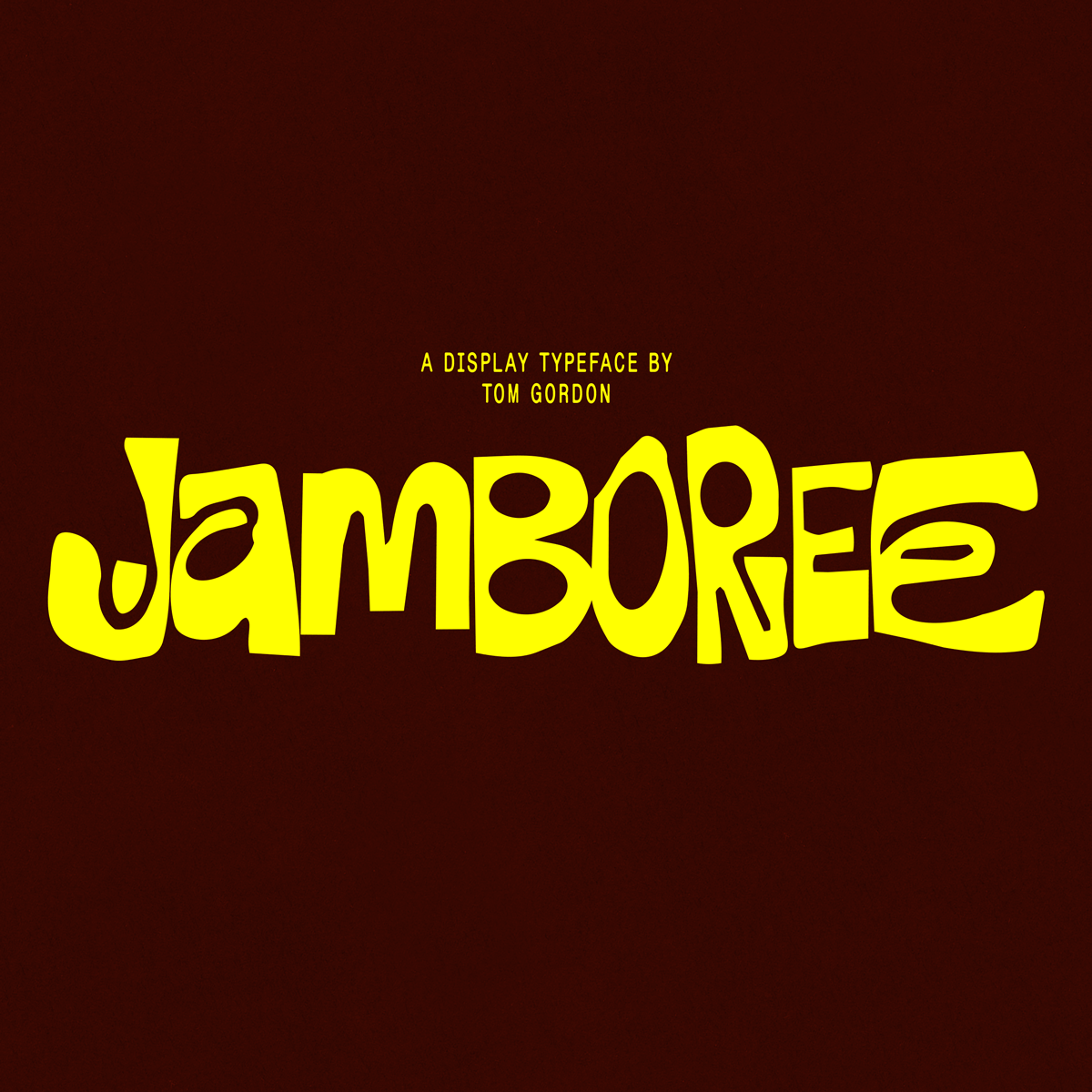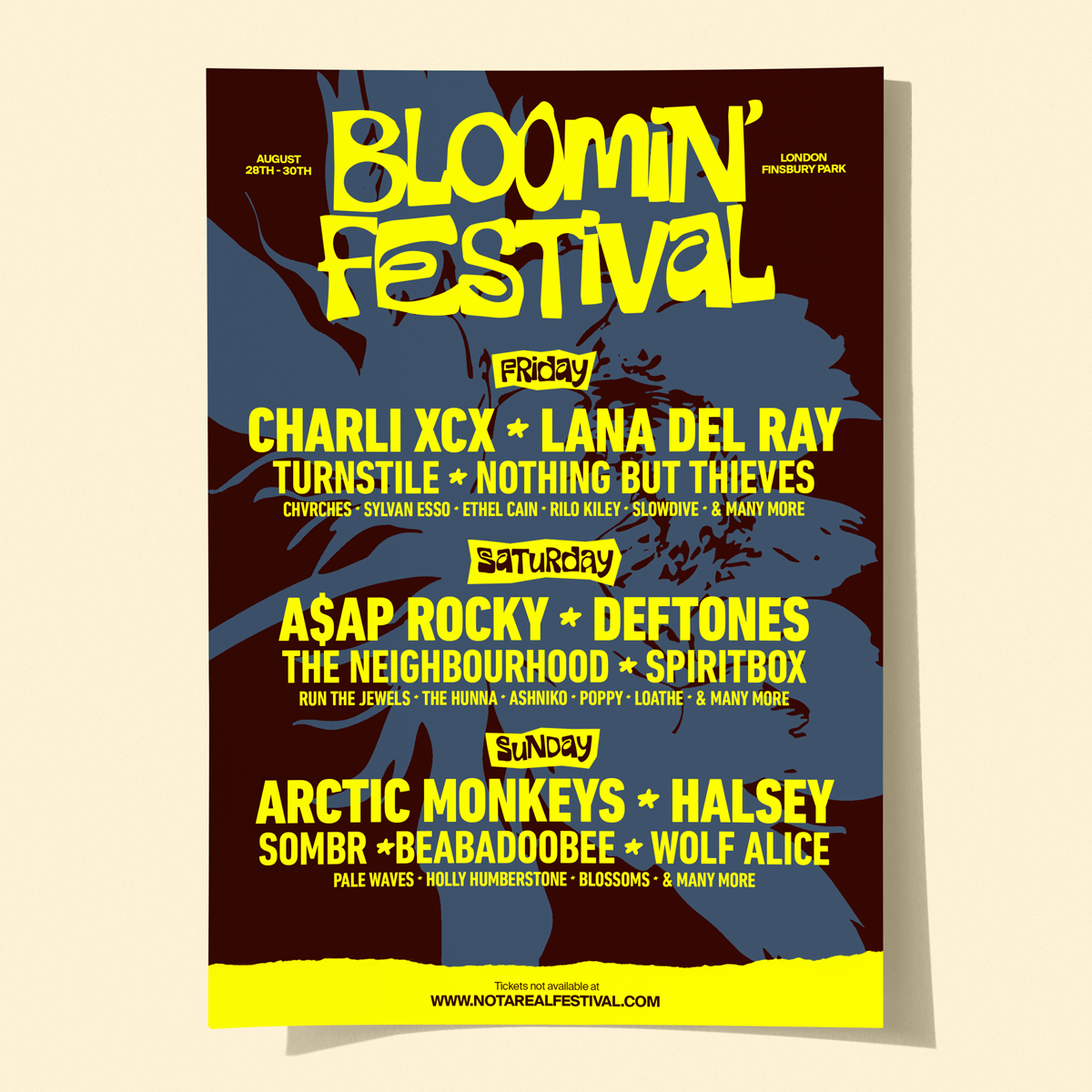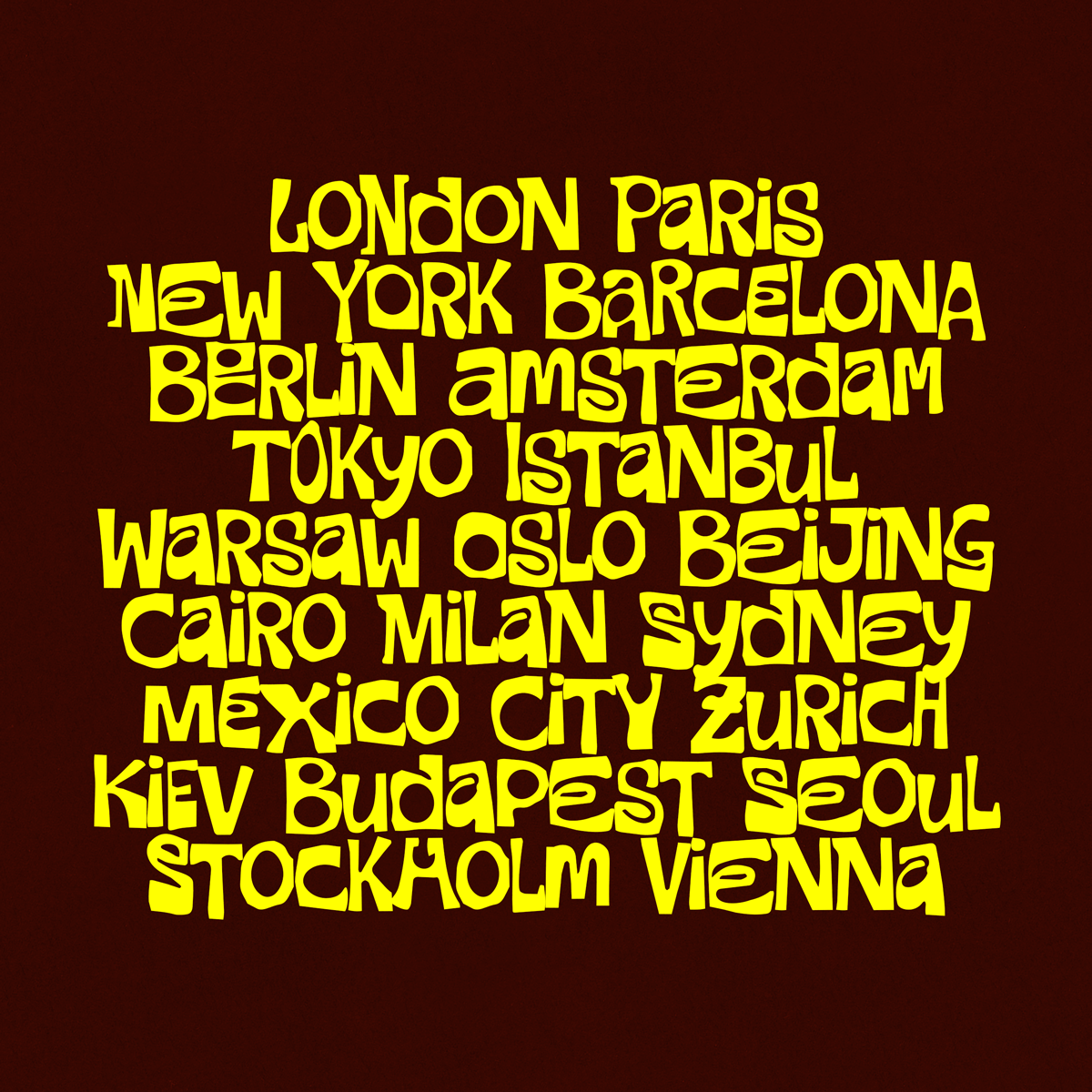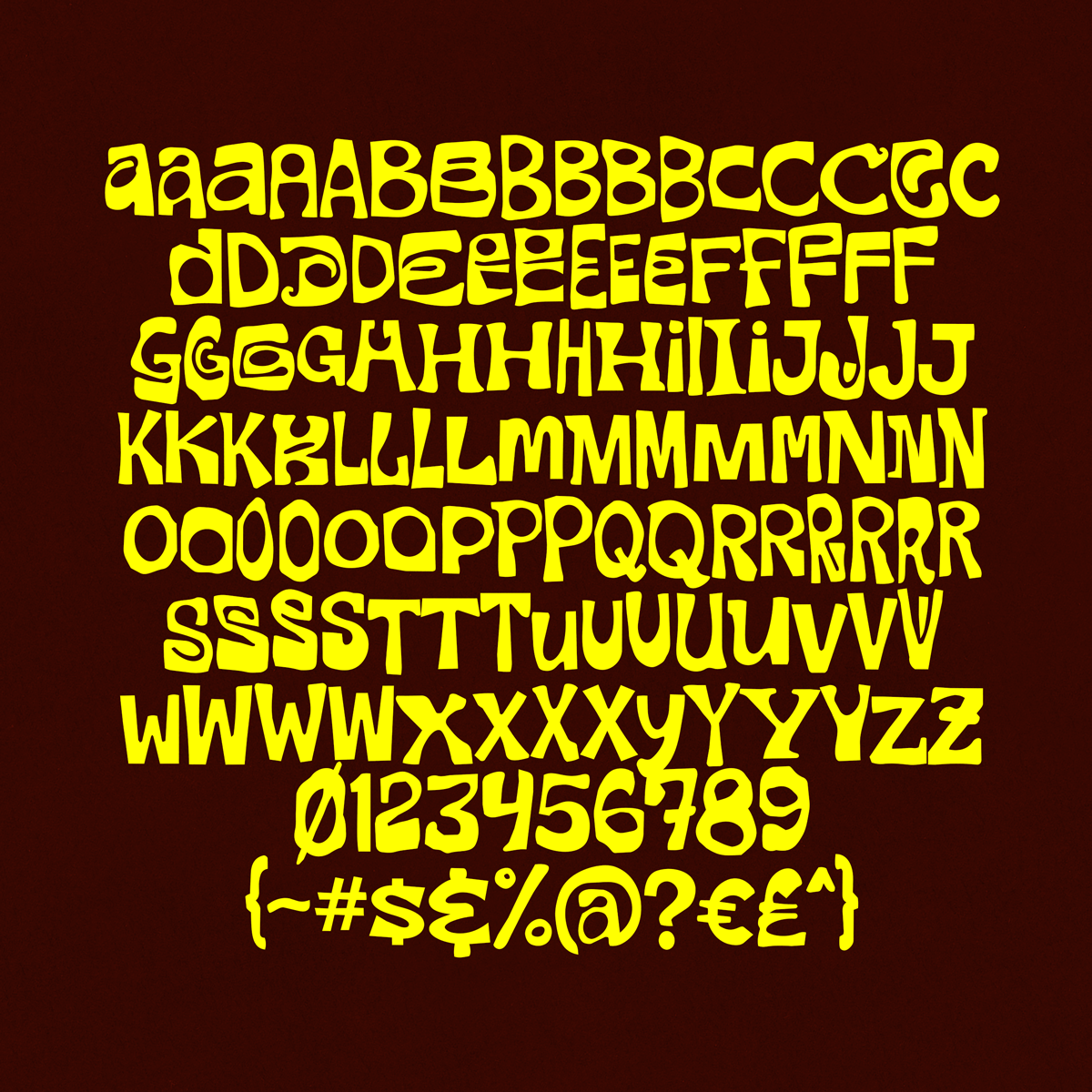
Jamboree is my new hand drawn display font! Inspired by Mexican typography it's the perfect whimsical font for uplifting branding projects. With a plethora of alternative letter options this font is perfect for branding, menus, posters, business cards, T-shirts, Tote bags and a whole host of other applications!
Full alphabet (Uppercase and Lowercase with plenty of alternative letter options)
Numbers and essential symbols